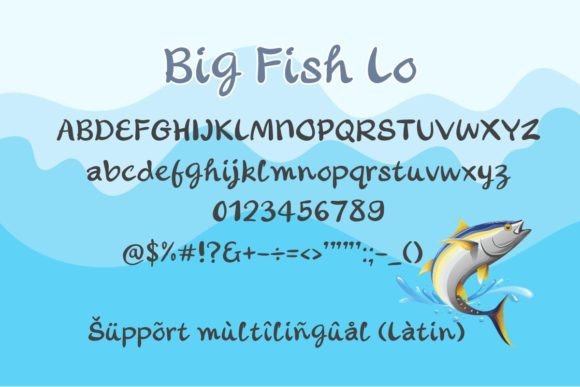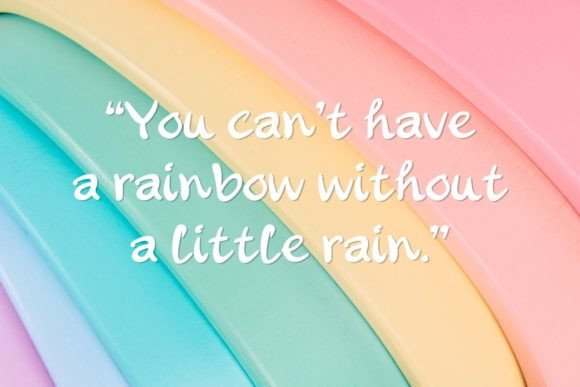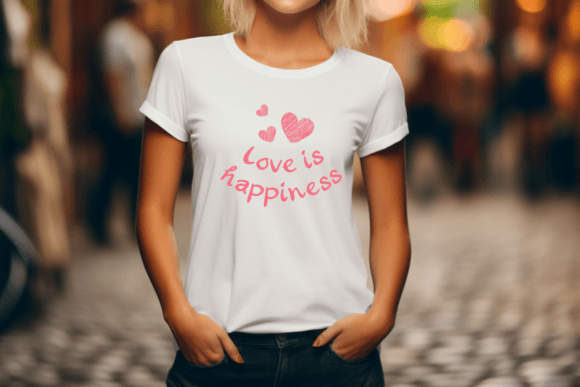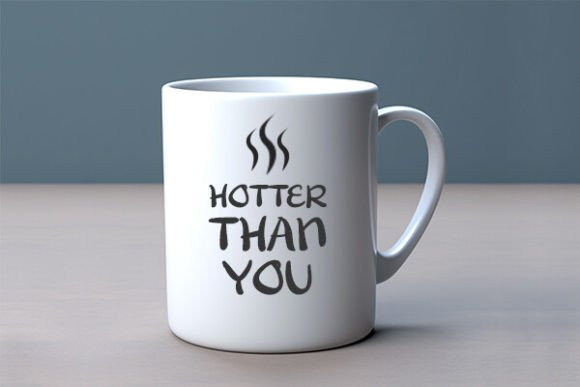
Introducing Big Fish Lo Font: The Ultimate Sans Serif Font for Creative Projects
Are you a designer, crafter, or DIY enthusiast looking for a font that can add a touch of playfulness and cheerfulness to your projects? Look no further than Big Fish Lo Font! This adorable, thick lettered, and cheerful sans serif font style is perfect for a wide range of applications, from greeting cards and headlines to website design, logos, and more.
What Makes Big Fish Lo Font So Special?
Big Fish Lo Font is a unique and versatile font that can be used in various creative projects. Its cute and cheerful design makes it perfect for:
- Greeting cards: Add a personal touch to your greeting cards with Big Fish Lo Font’s playful and friendly design.
- Headlines: Make your headlines stand out with this thick lettered font that’s sure to grab attention.
- Thank you cards: Express your gratitude with style using Big Fish Lo Font.
- Quotes: Add a touch of whimsy to your quotes with this delightful font.
- Website design: Use Big Fish Lo Font to create a fun and playful website that’s sure to engage your visitors.
- Logos: Create a memorable logo for your brand with this cheerful font.
- Posters: Design eye-catching posters with Big Fish Lo Font’s bold and playful design.
- Blogs: Add a personal touch to your blog with this friendly and approachable font.
- Merchandise: Use Big Fish Lo Font to create fun and playful designs for bags, T-shirts, clothing, and more!
Why Designers and Crafters Love Big Fish Lo Font
Big Fish Lo Font is a favorite among designers and crafters for several reasons:
- Easy to read: Despite its playful design, Big Fish Lo Font is easy to read, making it perfect for body text and headlines.
- Versatile: This font can be used in a wide range of projects, from digital designs to print materials.
- Cute and cheerful: Big Fish Lo Font’s playful design adds a touch of whimsy to any project.
- High-quality: This font is designed with high-quality and clarity in mind, ensuring that it looks great in any size or resolution.
Tips for Using Big Fish Lo Font in Your Projects
Here are some tips for getting the most out of Big Fish Lo Font:
- Pair it with other fonts: Big Fish Lo Font pairs well with other sans serif fonts, as well as script fonts for a fun and playful contrast.
- Experiment with colors: This font looks great in bold and bright colors, but also works well in more muted tones.
- Use it for emphasis: Big Fish Lo Font’s bold design makes it perfect for emphasizing important text, such as headlines or calls-to-action.
Big Fish Lo Font is a versatile and playful sans serif font that’s perfect for designers, crafters, and DIY enthusiasts. With its cute and cheerful design, this font can add a touch of whimsy to any project. Whether you’re creating greeting cards, headlines, website designs, or merchandise, Big Fish Lo Font is sure to become a favorite in your font collection.